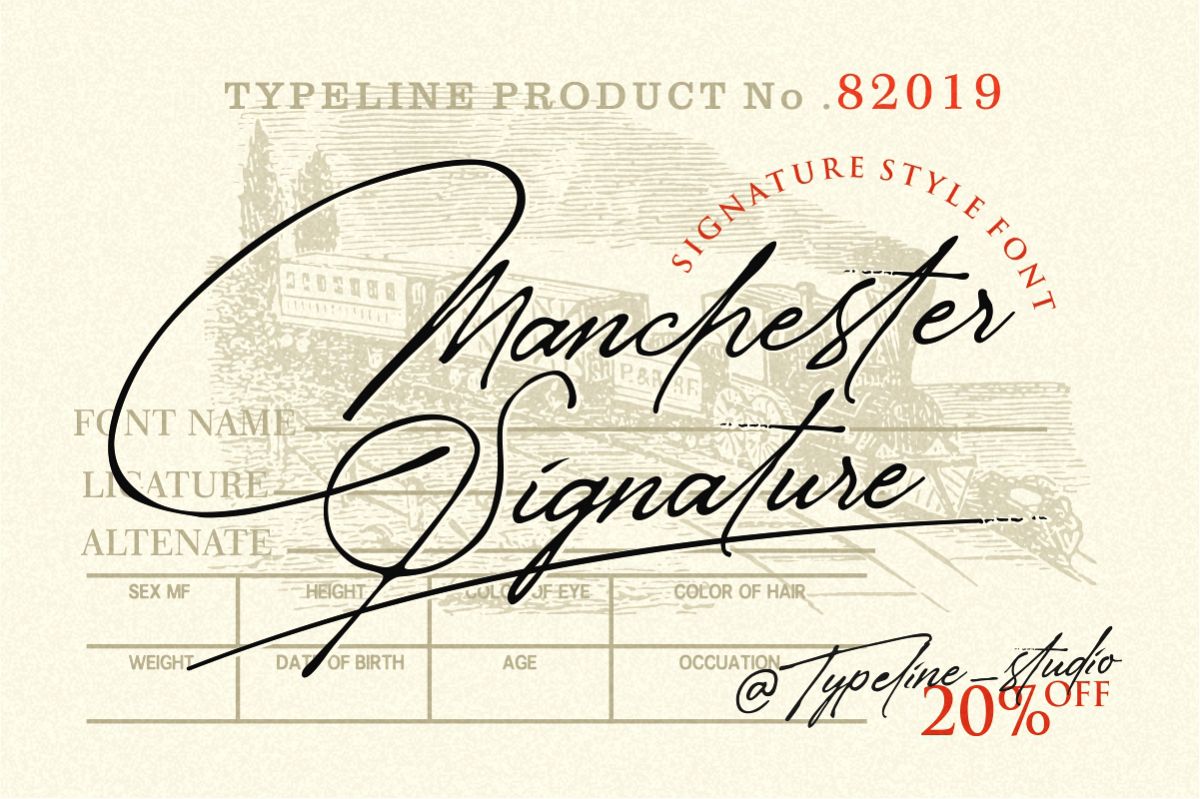
Manchester Signature
hello good people..!!!today im release new product Manchester Signature Classy font ,i hope this font perfect for creating signature logos and watermarks for photography studio or personal photography logo,and this font best for initial or branding logo signature . I made it with a sense of elegant,professional, and unique style,You can try it first by typing the name you want below I make it so simple but has a very luxurious taste in it, this font has a lowercase alternative which is very similar to handwriting using a pen so it is suitable for signature, logos, watermark photos, and many more. just write you can create custom personal signature,create custom logo,so this amazing signature for you all.What's Included :